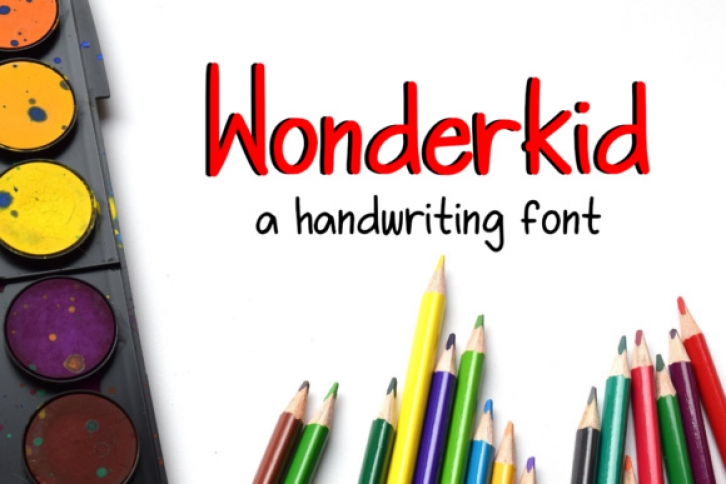
Wonderkid is a cutesy sans serif font, perfect for use in children’s oriented designs and more! This font is highly readable, and works in fun, print projects.